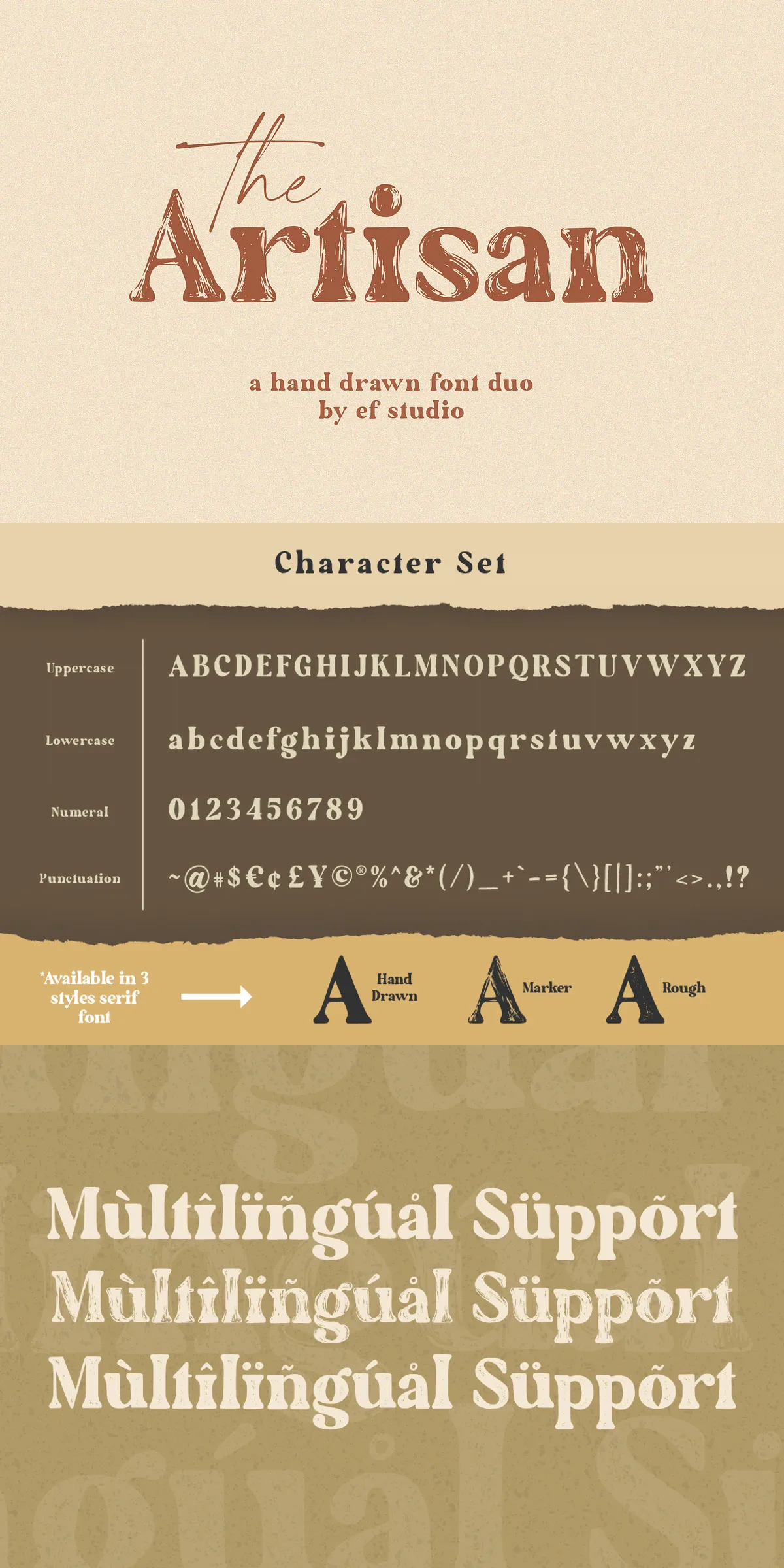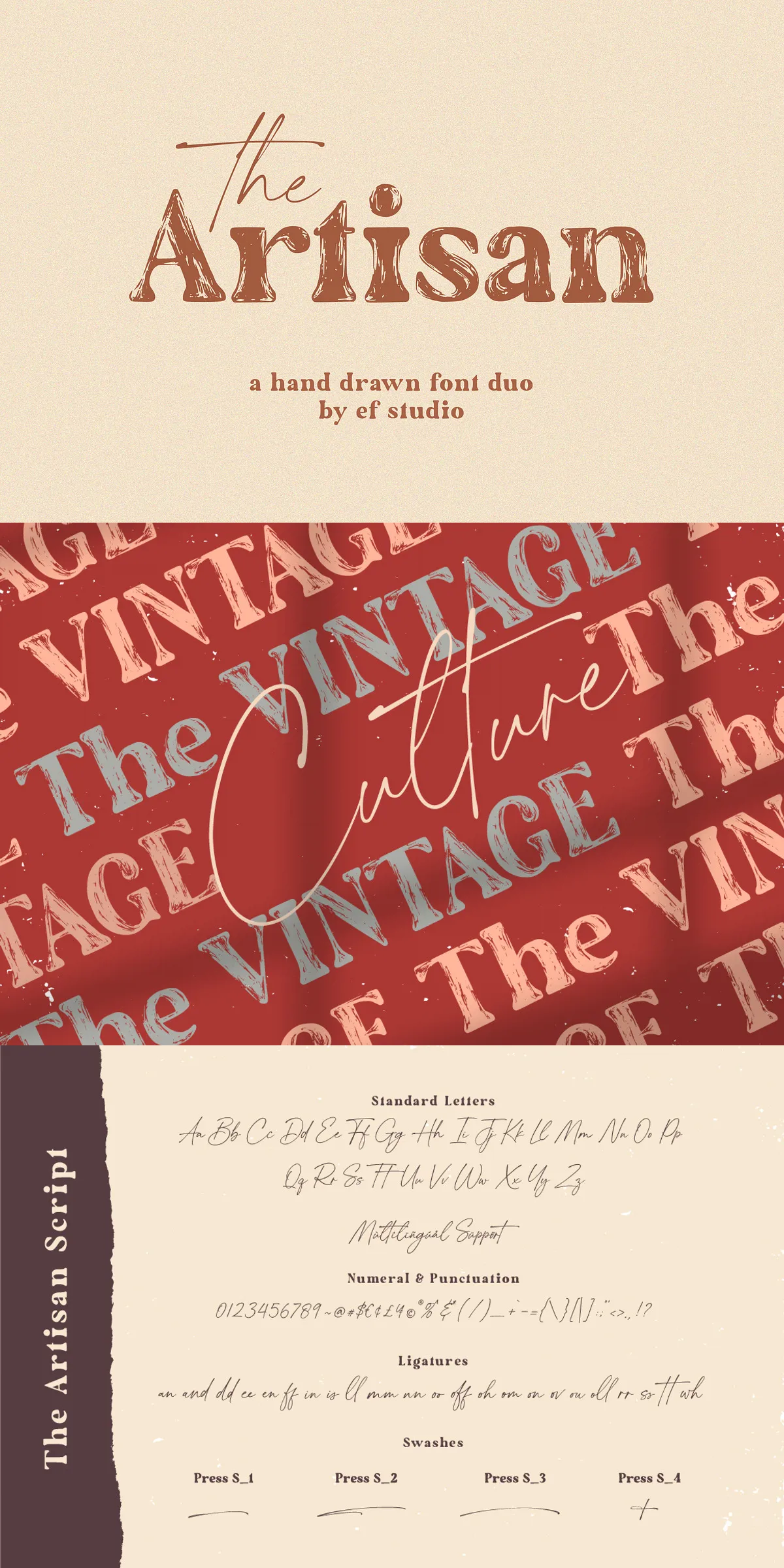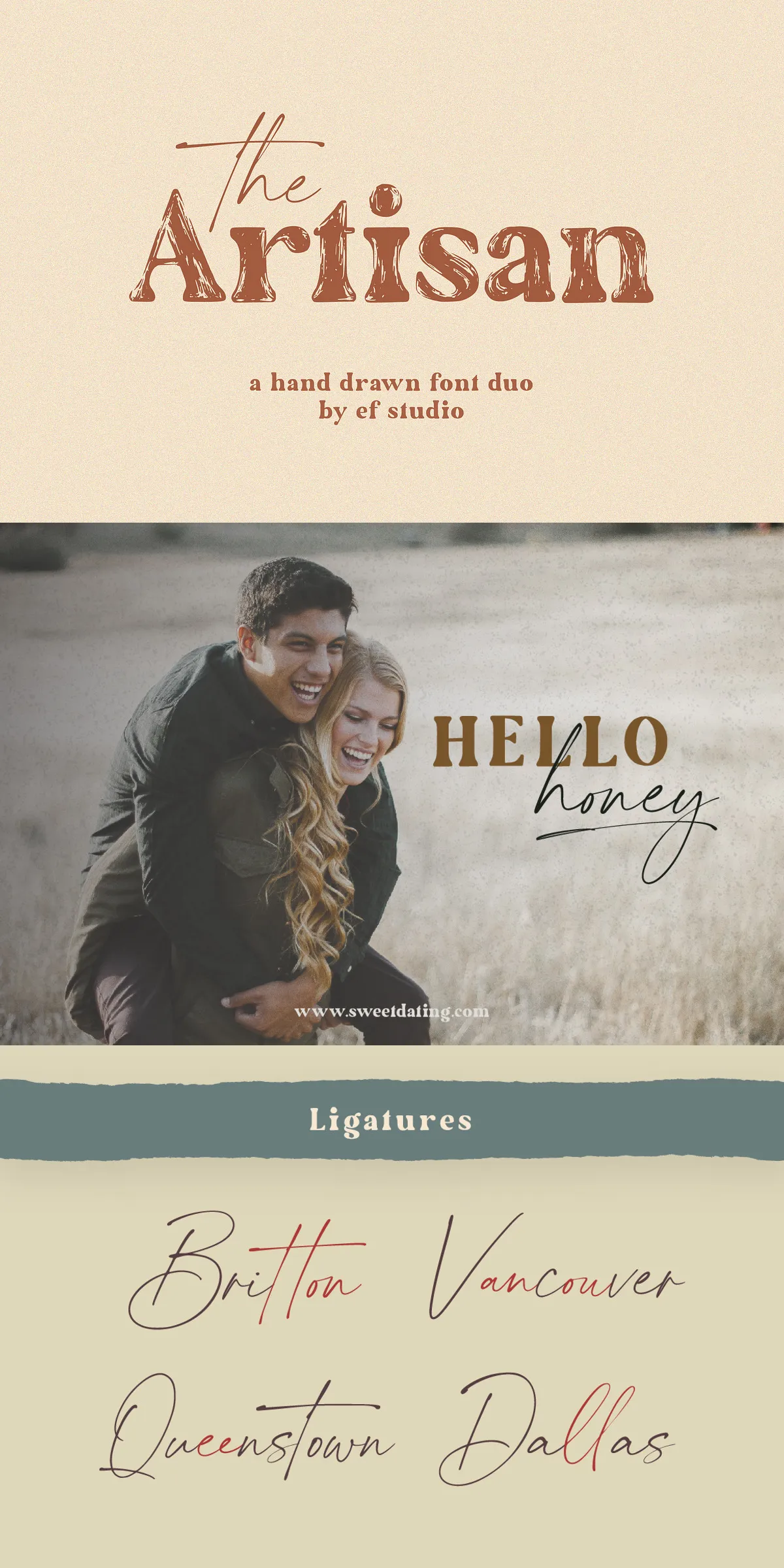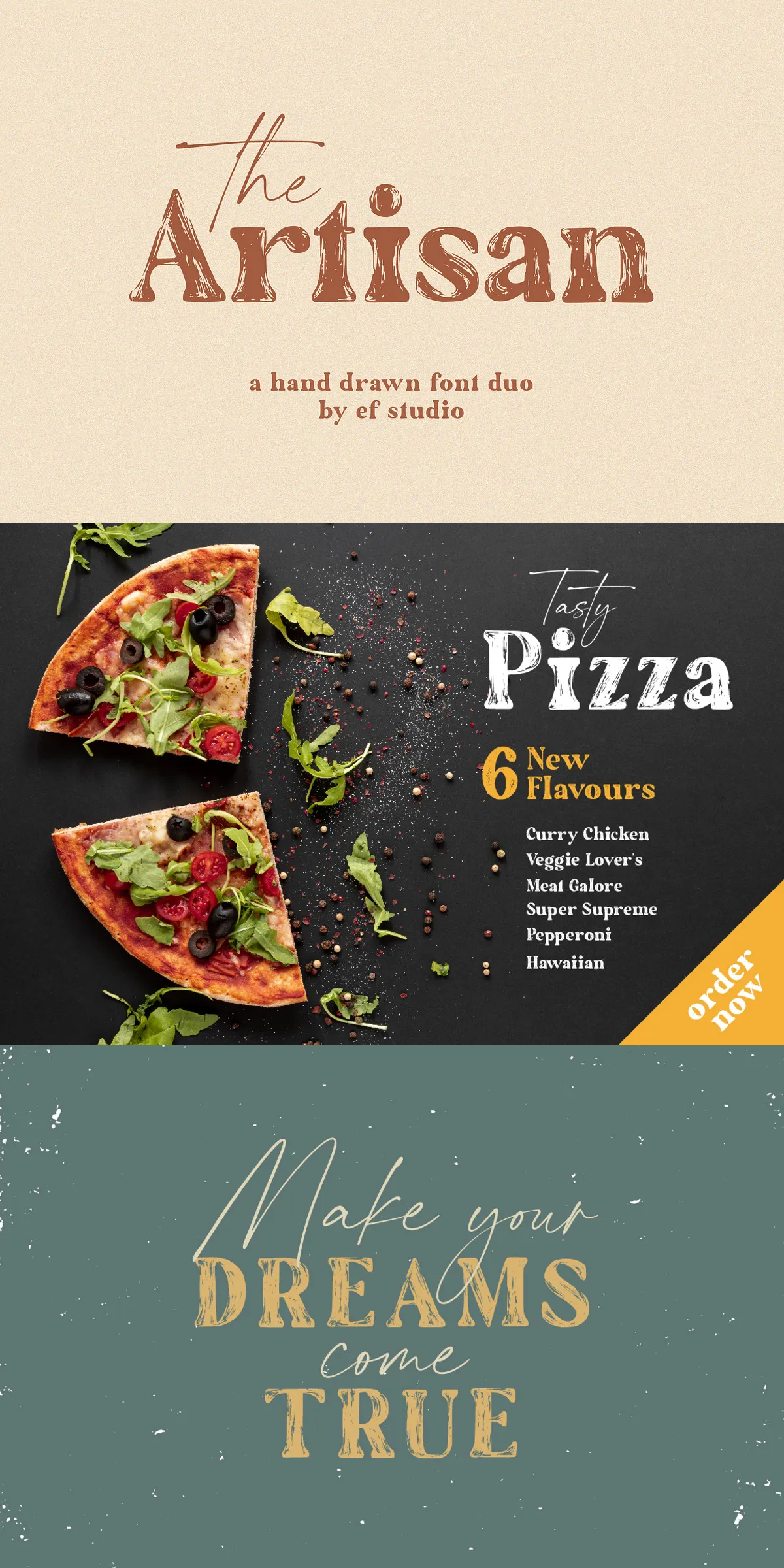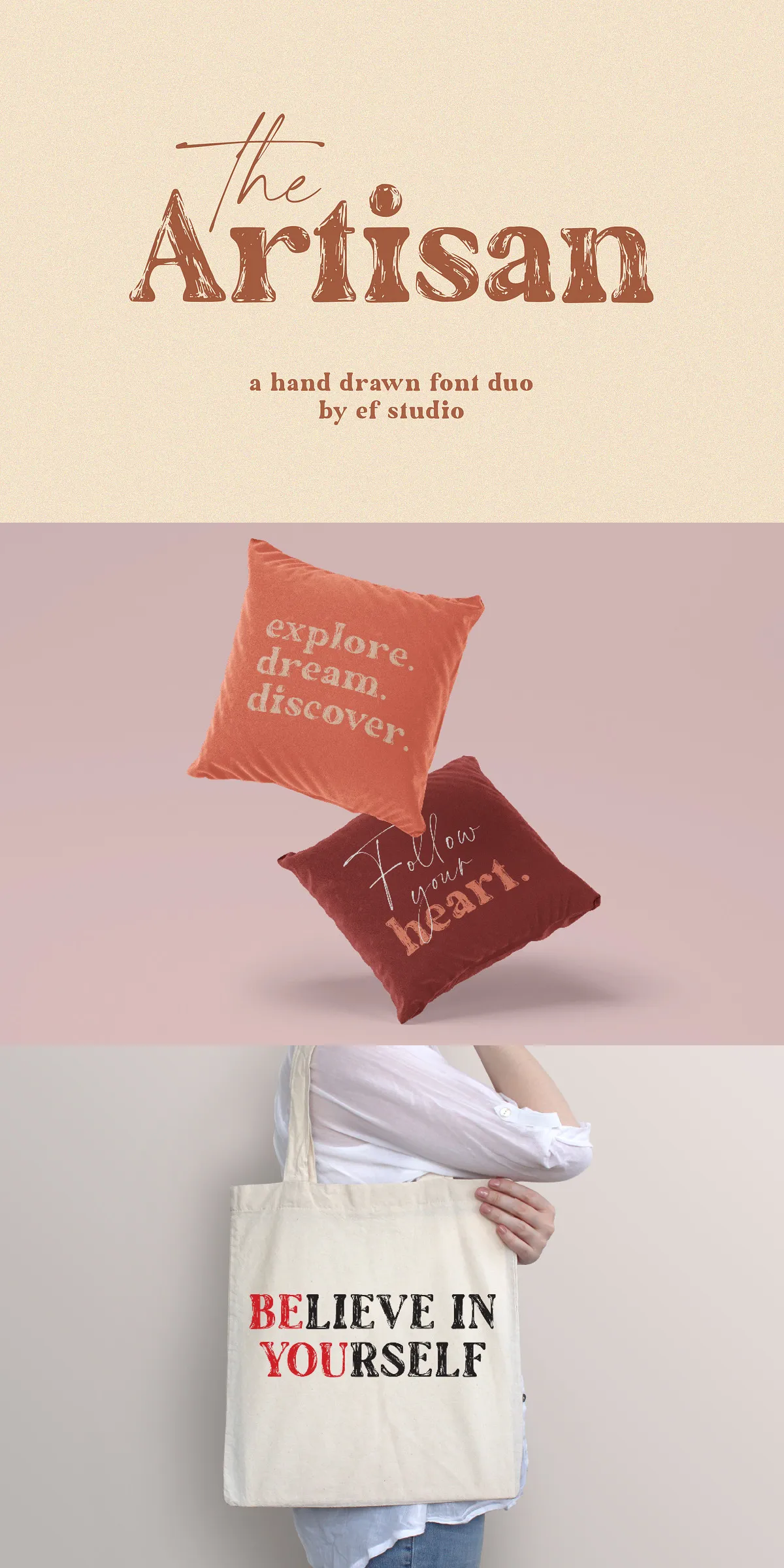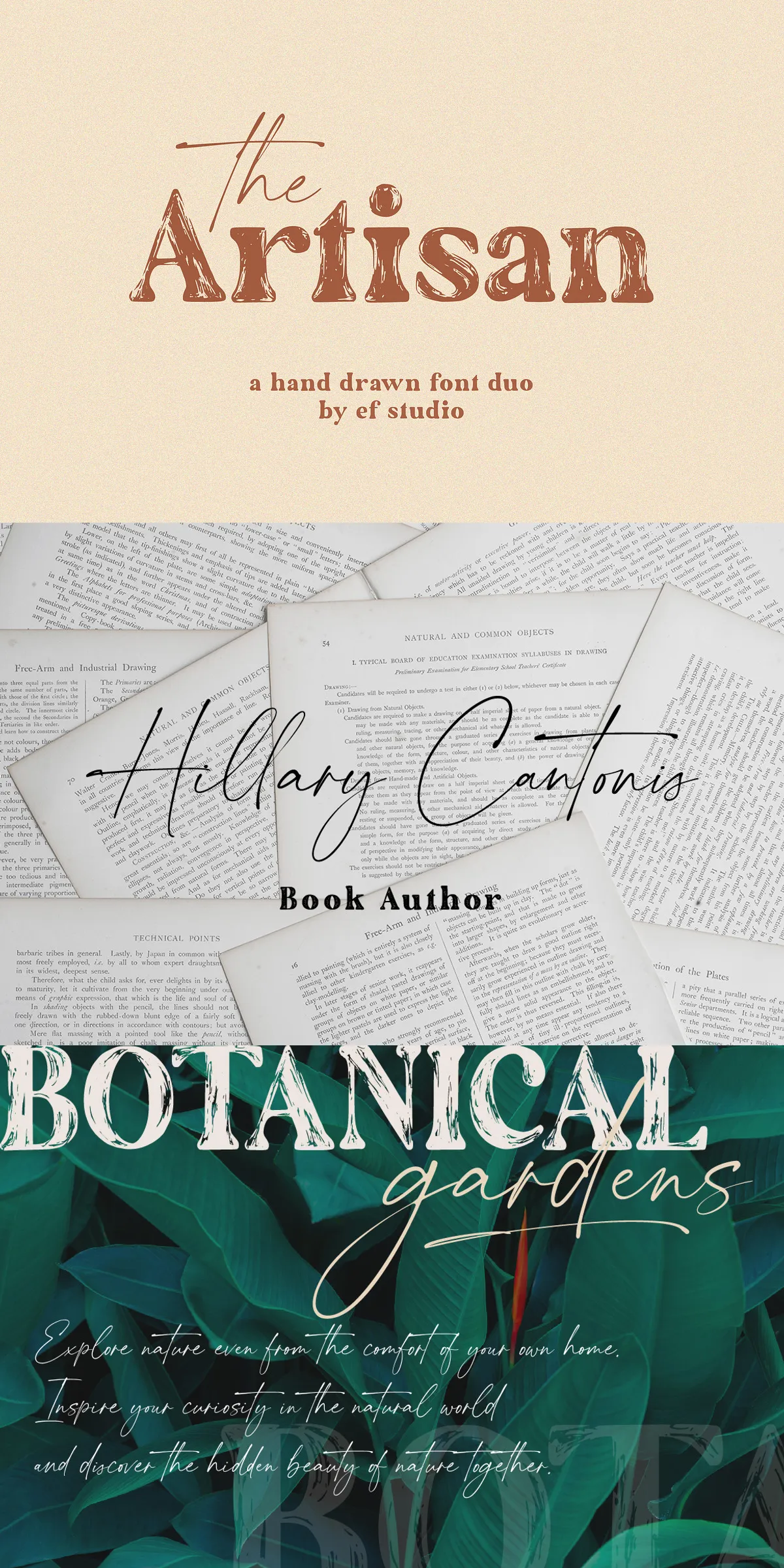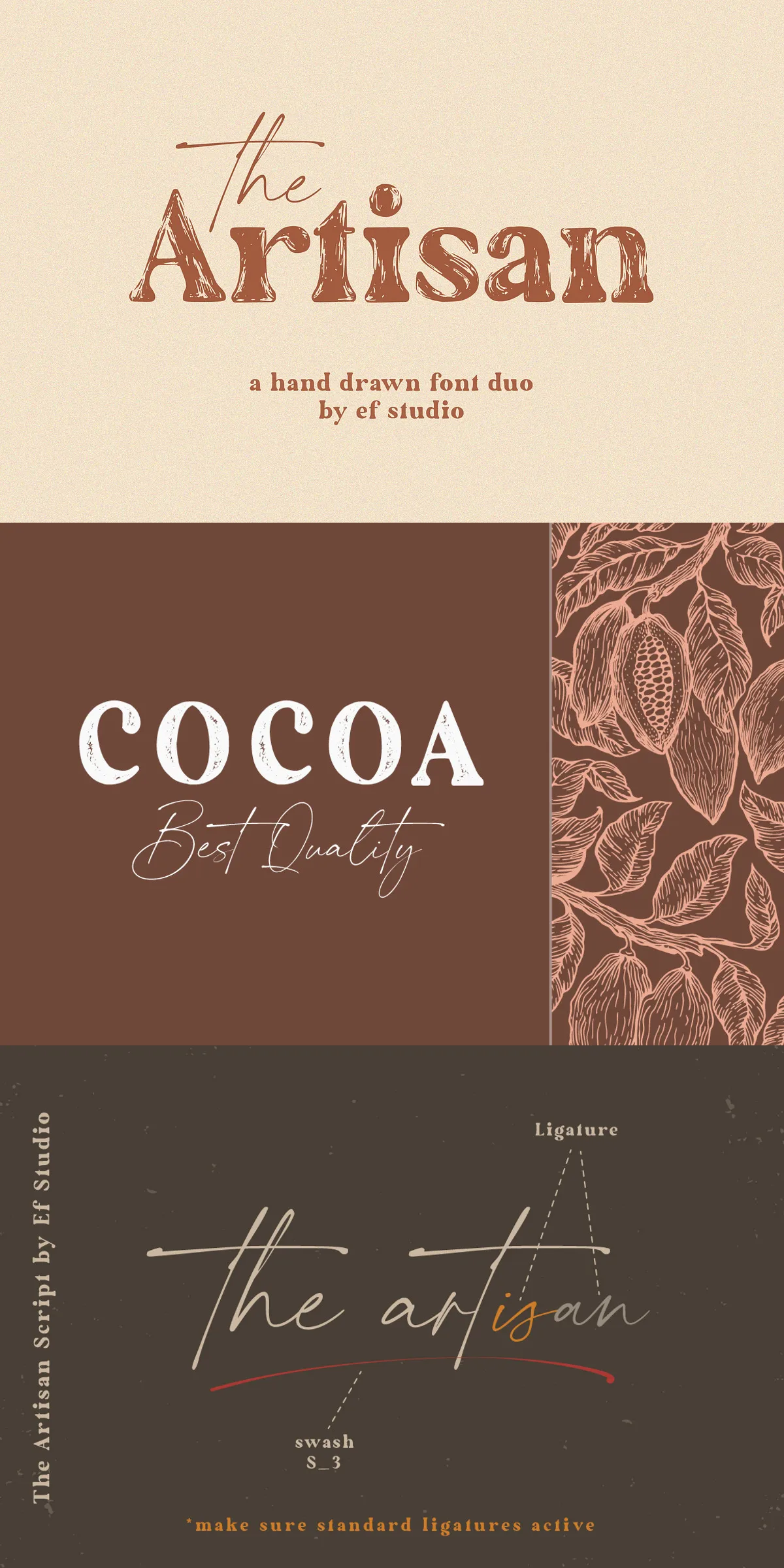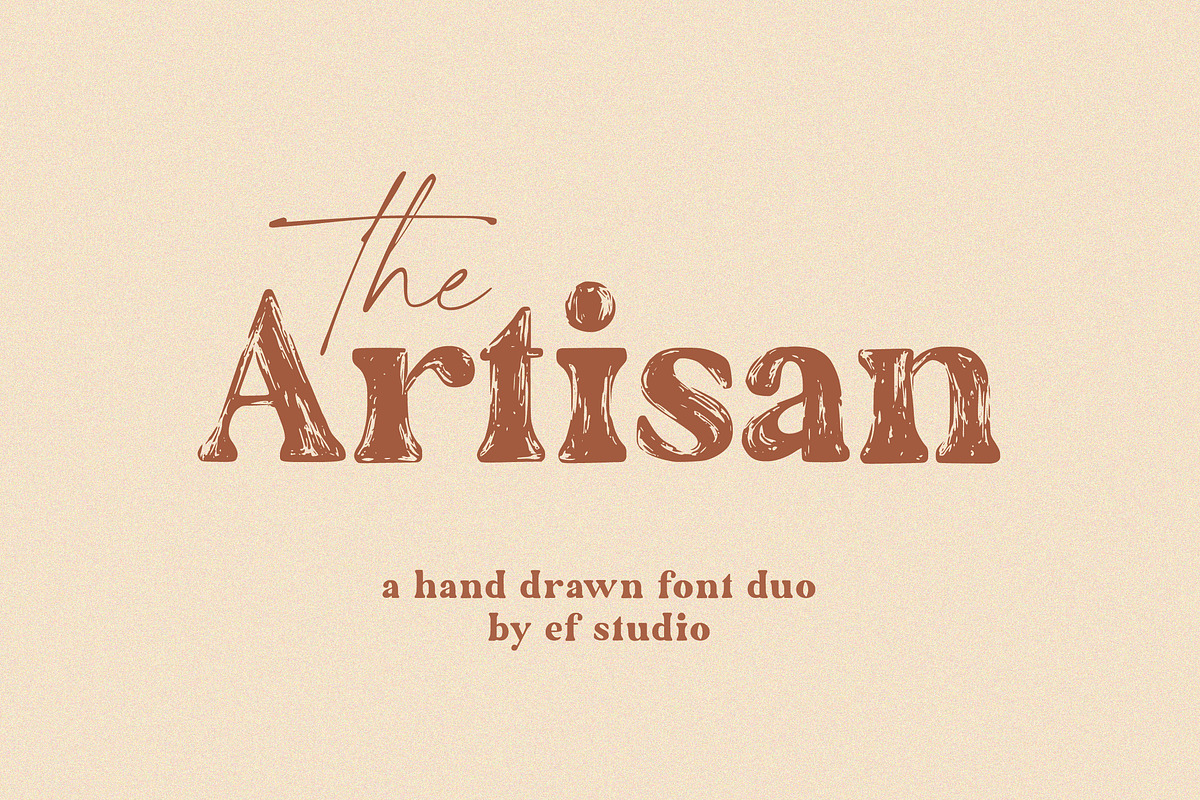
The Artisan is a remarkable hand-drawn font duo designed to elevate your creative work with its distinctive and versatile style. Comprising three elegant serif styles and one expressive script style, this font set offers unparalleled flexibility that suits various design applications including branding, logos, print goods, merchandise, websites, quotes, and social media content. Its unique combination creates a modern, artistic feel that sets your projects apart with authenticity and charm.
Complete Font Styles for Maximum Versatility
The Artisan offers a comprehensive package carefully crafted for creative freedom and ease of use:
Three Serif Styles to Suit Every Need
The serif fonts in The Artisan duo deliver a variety of expressions — from refined to bold — allowing you to tailor your typography perfectly to your design vision. Each serif style includes a full set of uppercase and lowercase letters, numerals, punctuation marks, and multilingual symbols, ensuring your text retains both style and readability across numerous languages and contexts.
Expressive Script Style with Ligatures and Swashes
The Artisan script font completes the duo with its fluid, hand-drawn character. This style includes all uppercase and lowercase letters, numerals, punctuation, and multilingual support as well. Additionally, it boasts elegant ligatures and extra swashes, empowering you to add flourish and personality to headlines, logos, and quotes for a truly unique typographic statement.
Extensive Language Support and Character Coverage
Designed for a global audience, The Artisan font duo supports 17 languages, including:
This extensive multilingual support guarantees that your design projects will communicate effectively with diverse audiences around the world.
- The Artisan Hand Drawn Serif
- The Artisan Marker Serif
- The Artisan Rough Serif
- The Artisan Script
The Artisan provides a perfect balance of modern aesthetics and hand-crafted authenticity. Whether you are building a brand identity, designing trendy product packaging, or crafting engaging digital content, these fonts add a stylish, personal touch that makes your work stand out. The combination of serif structure and script fluidity offers boundless opportunities to express your unique creative voice.